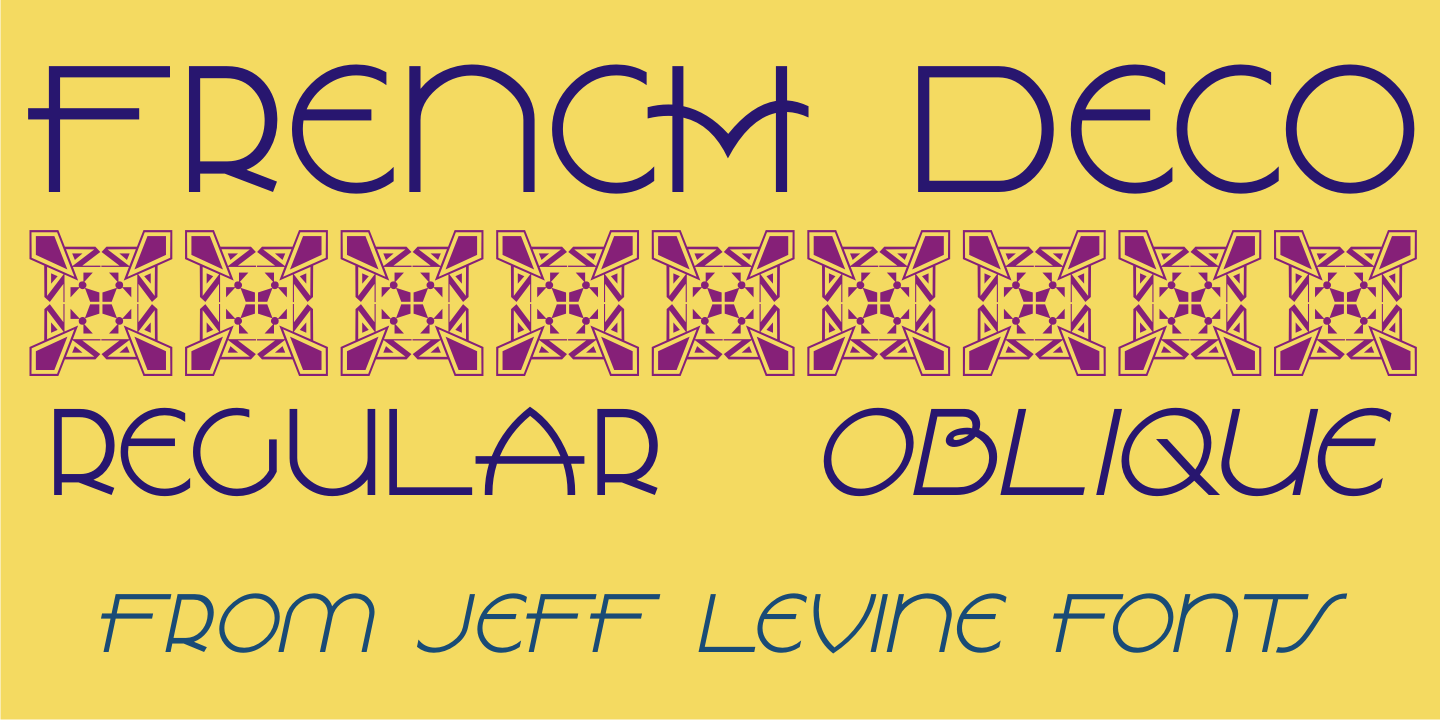
French Deco
A wide and thin hand lettered Art Deco design from the vintage French lettering book 'L'Art du Tracé Rationnel de la Lettre” was the inspiration for French Deco JNL; available in both regular and oblique versions.
French Deco JNL Regular by Jeff Levine Fonts